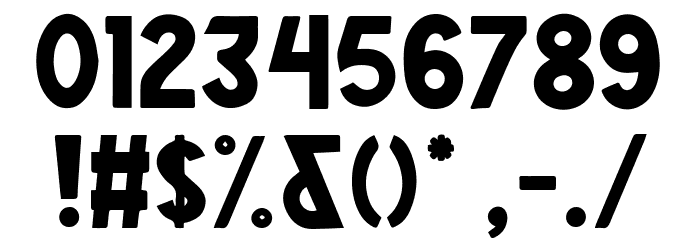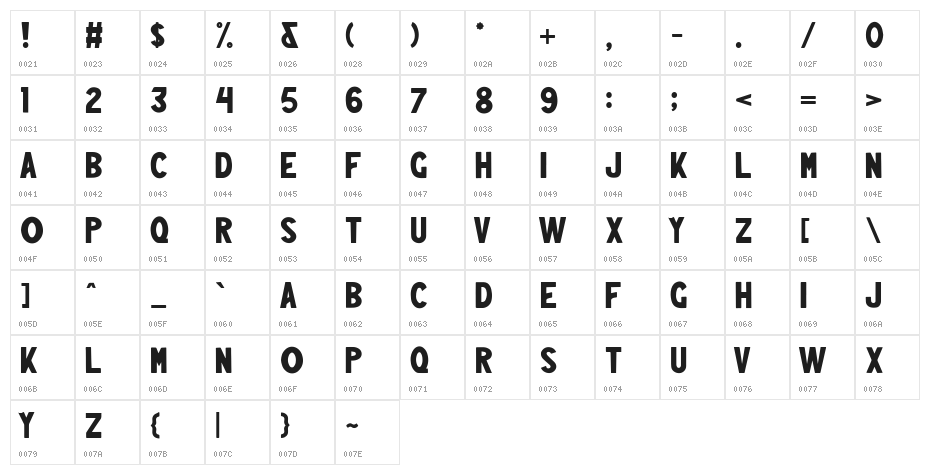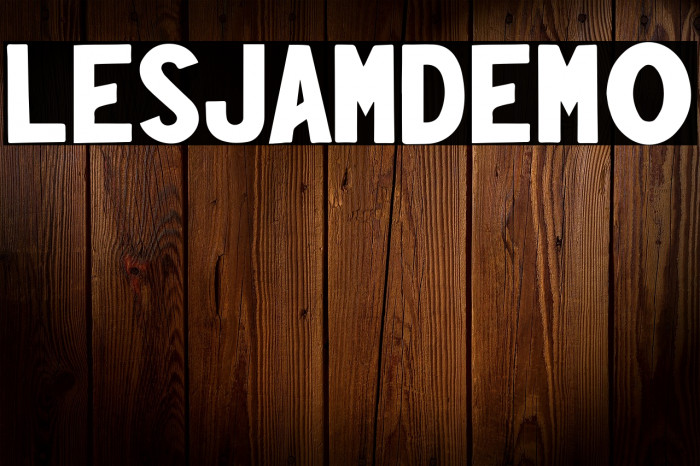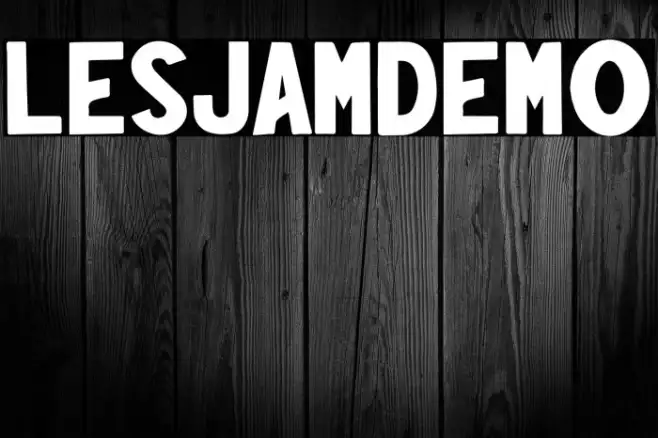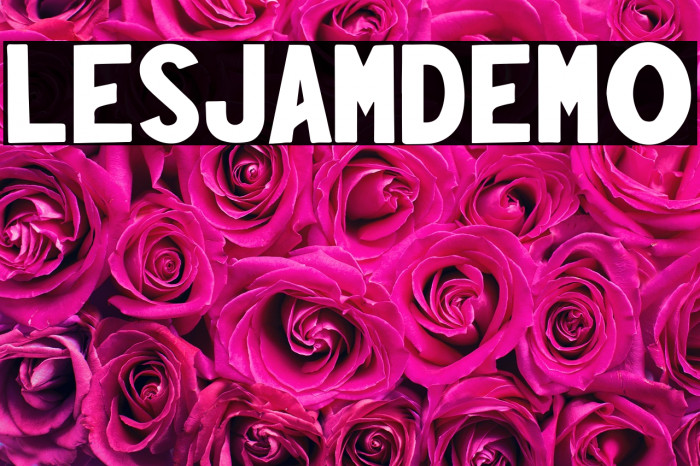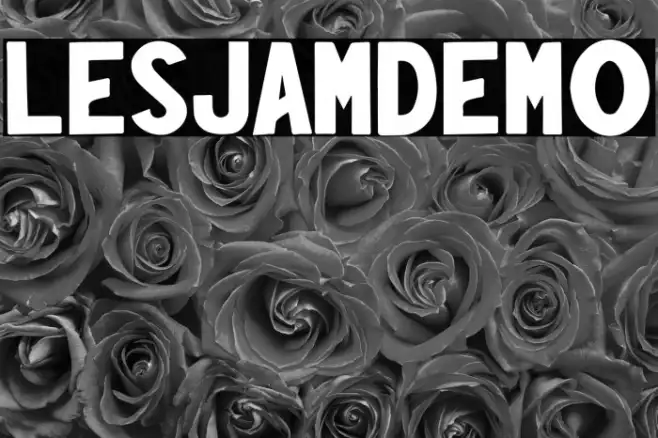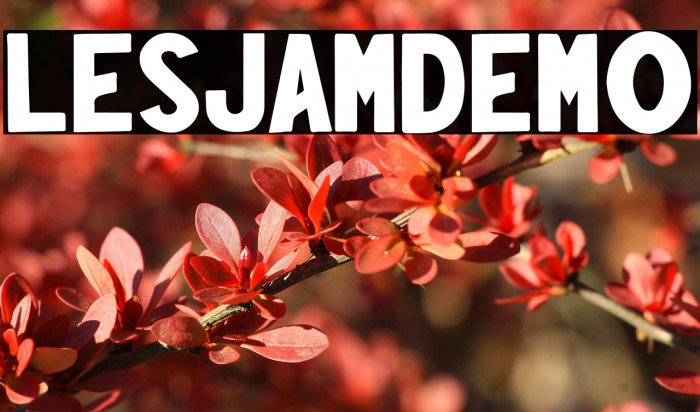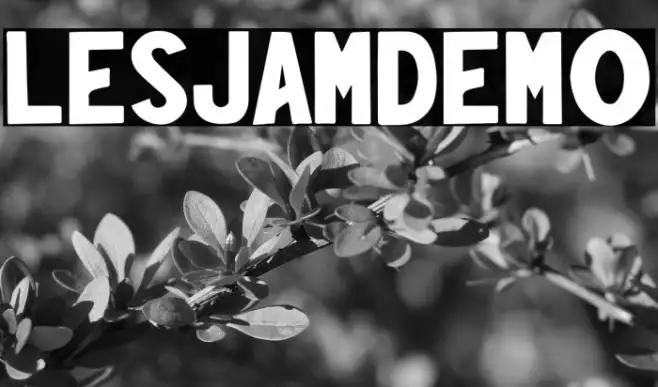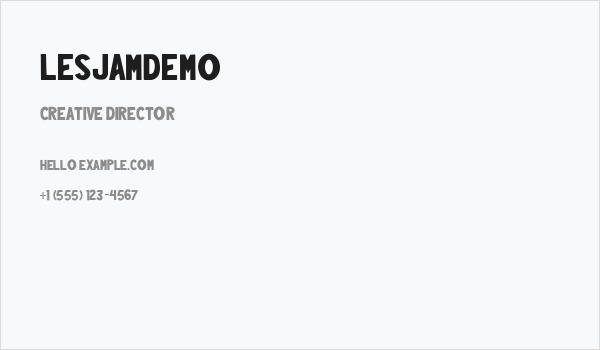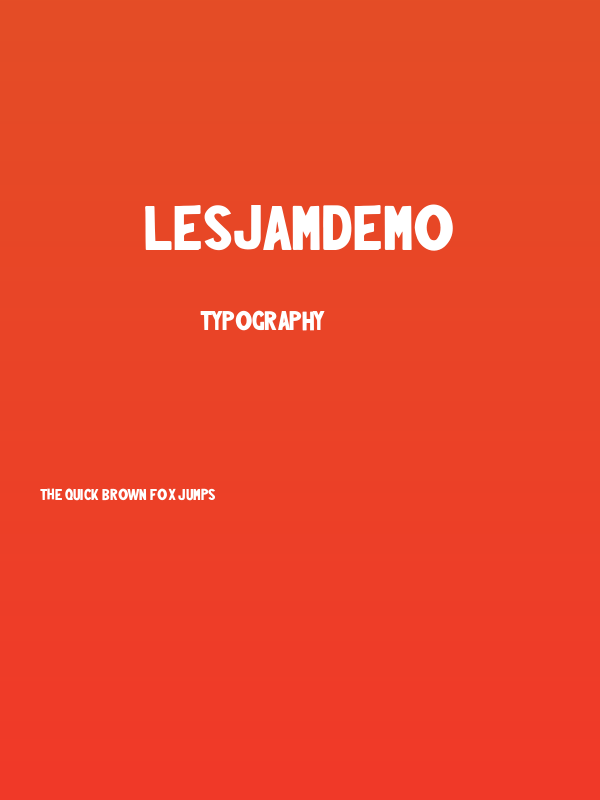
LesjamDemo Font
LesjamDemo Description
This font features bold, thick strokes with a playful and slightly irregular design, giving it a hand-drawn appearance. The characters are rounded and have a consistent weight throughout, contributing to a cohesive and robust look. The uppercase letters are prominent and well-defined, while the lowercase letters maintain the same boldness, ensuring readability. Numbers and special characters follow the same stylistic approach, making them easily distinguishable. The overall style is casual and friendly, suitable for projects that require a touch of personality and approachability.
| Proposed Projects | Ideal for children's books, playful branding, posters, and social media graphics. |